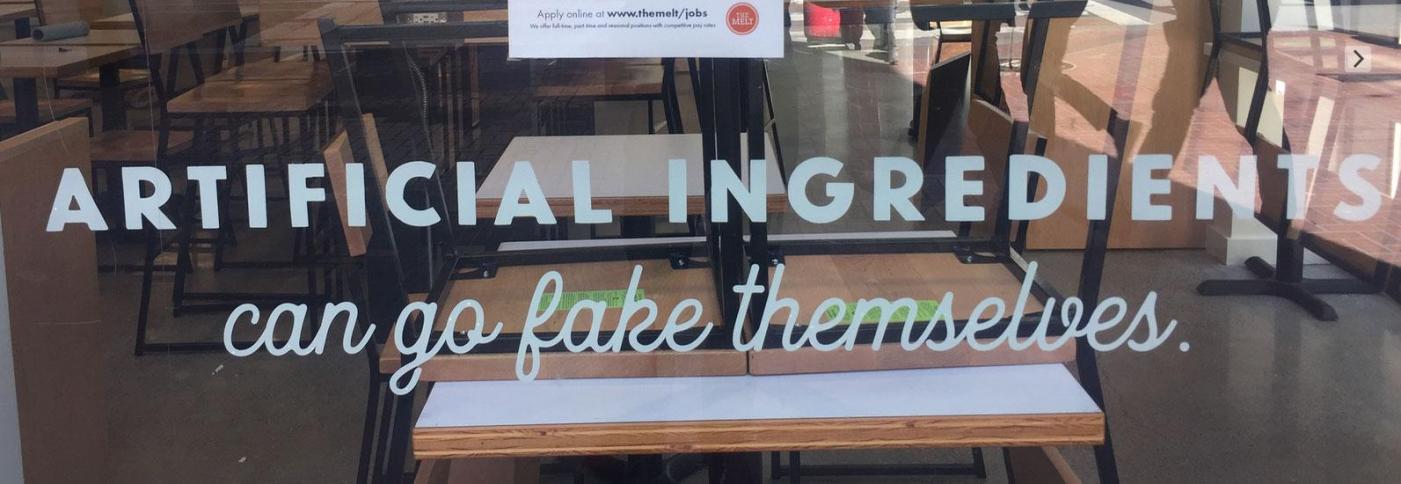
Script font seen on the Window of "The Melt" in SF
I'm trying to identify this script font. I took this photo outside on the external window of a grilled cheese franchise in San Francisco called "The Melt".
This was obviously created very recently.
Note the shadow in the tail of the z. Bonus points for identifying the All-Caps heavy font above.